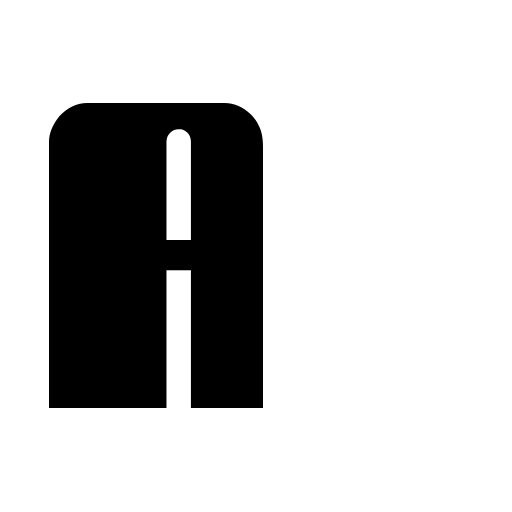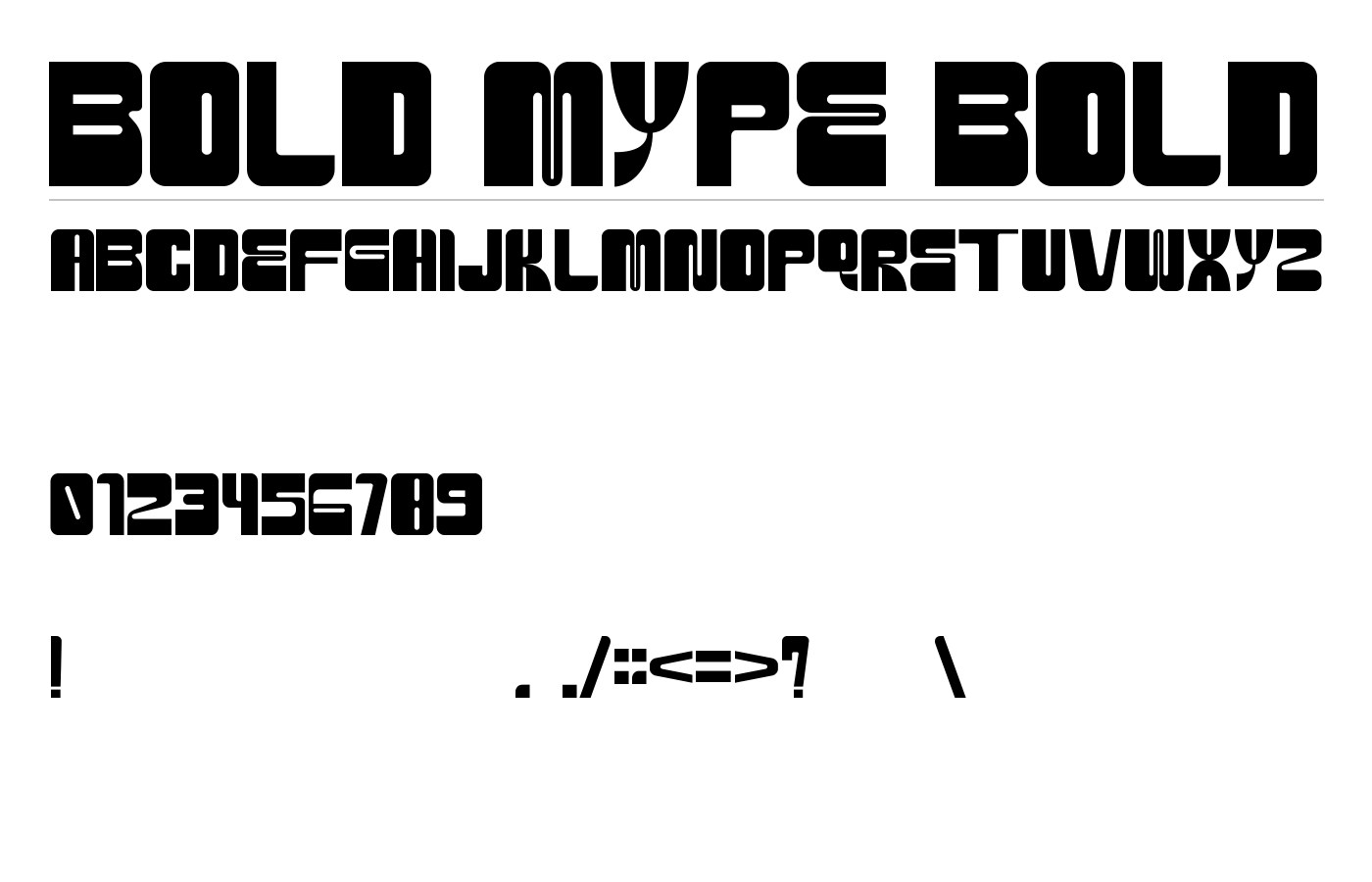
BOLD MYPE BOLD is a striking, heavy-weight sans serif font with a futuristic and geometric style. Its bold, condensed letterforms feature high stroke contrast and unique, rounded corners, giving the typeface a modern, tech-inspired vibe ideal for eye-catching headlines, logos, and posters. This font works best where a strong, innovative presence is needed, making it perfect for brands in technology, entertainment, and creative industries.
BOLD MYPE BOLD Font